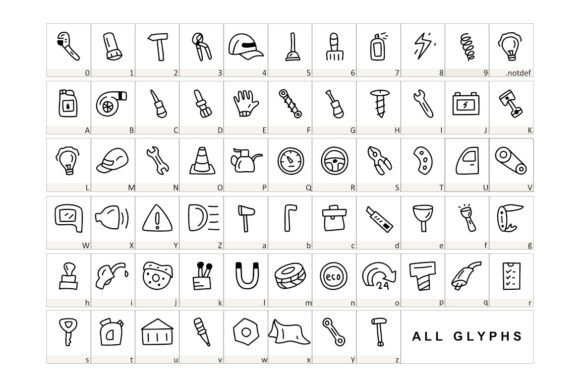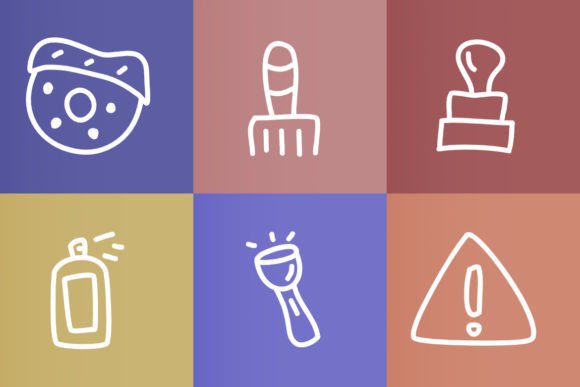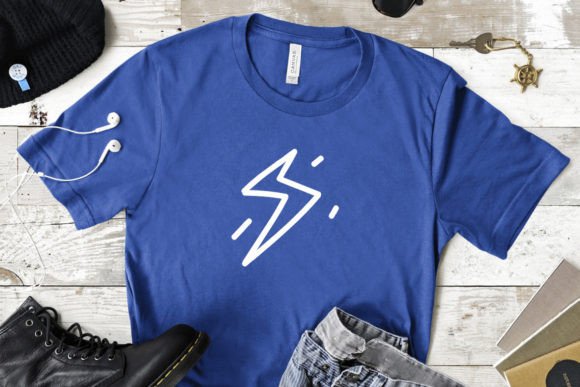
Introduction to Car Service Font
Car Service is a fun and useful dingbats font perfect for a wide variety of projects.
Use it for stickers, posters, t-shirts, cards, apparel graphics, etc ; you will love the results.
Car Service Font offers exceptional quality and versatility, making it a valuable addition to your design toolkit. Whether you’re creating for personal projects or commercial use, Car Service Font delivers professional results.